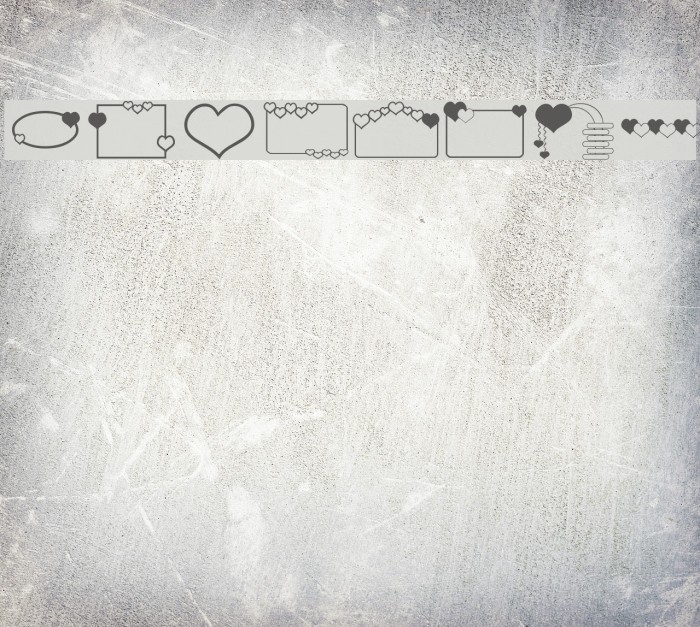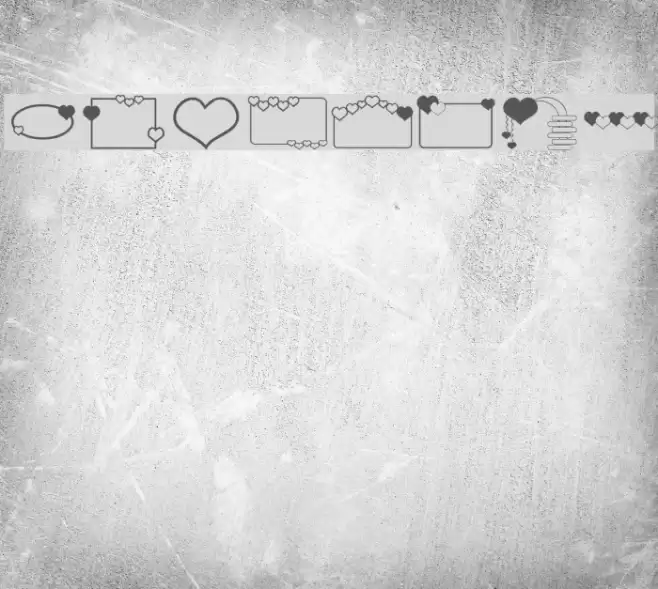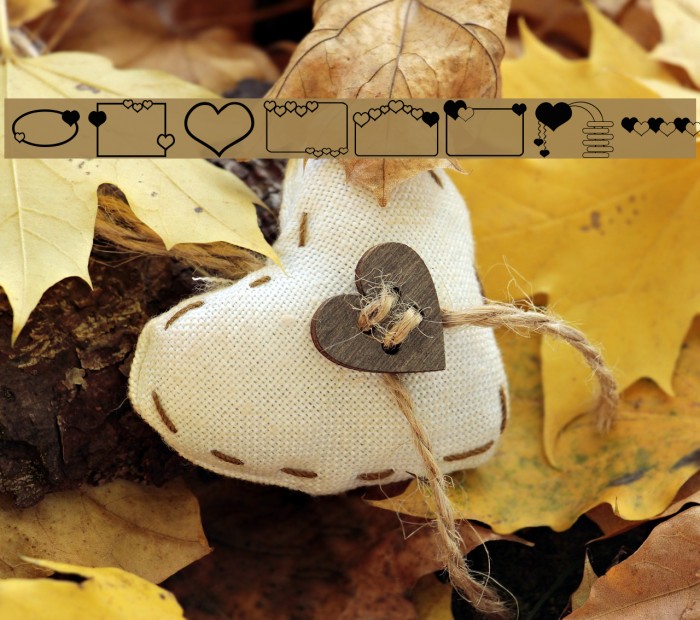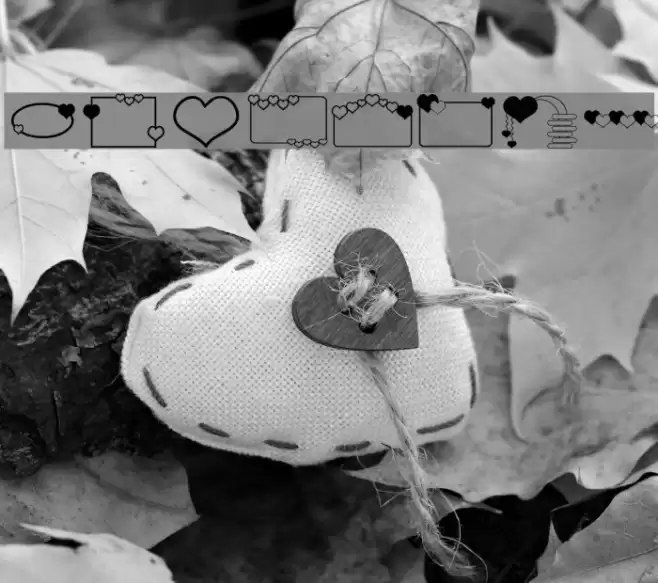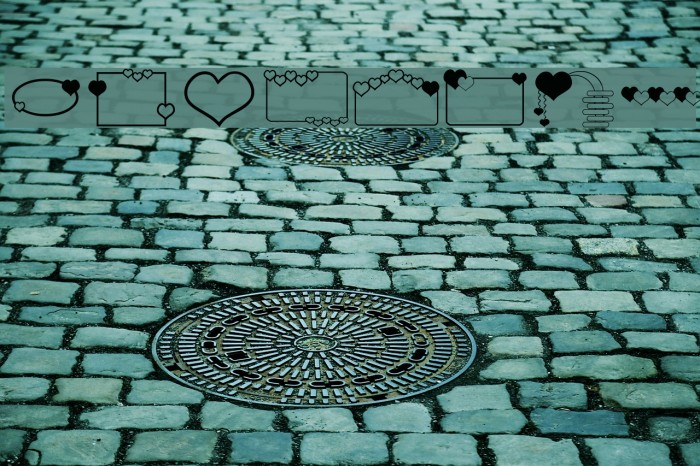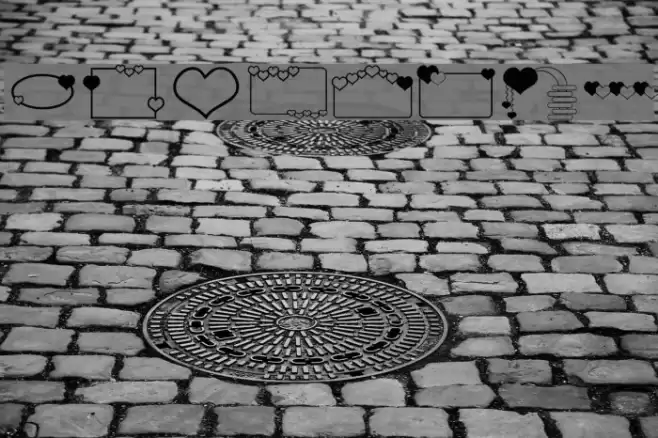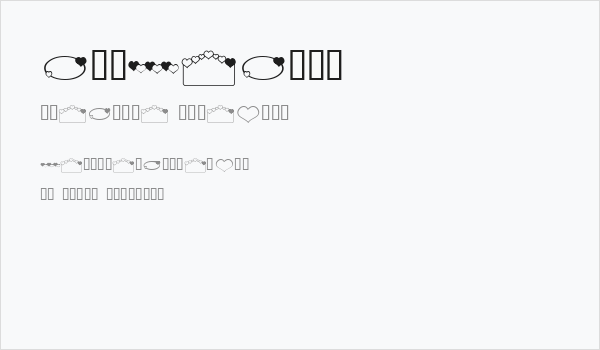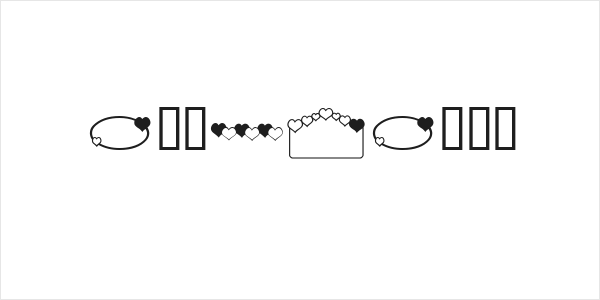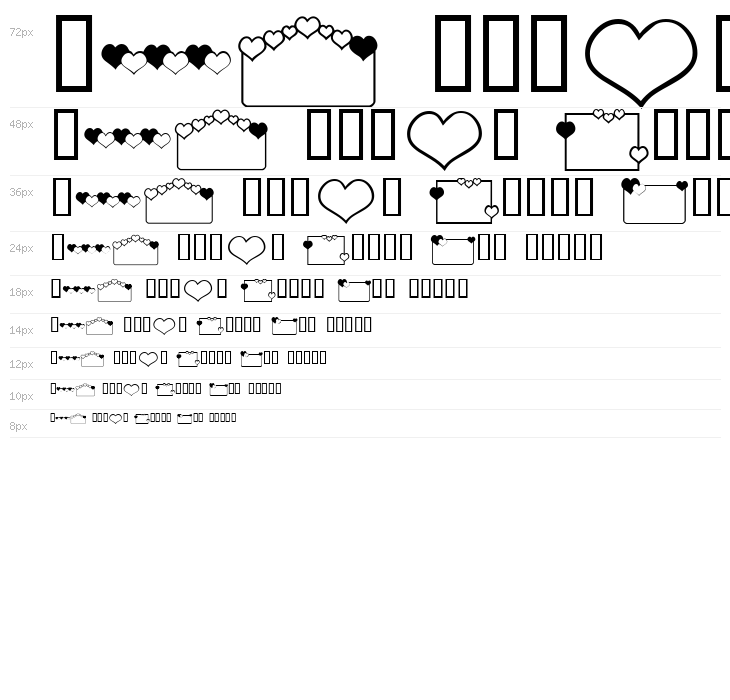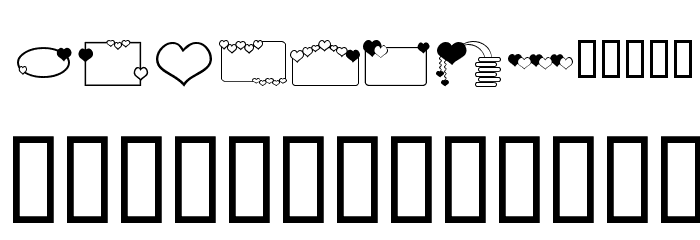
ap_hearts Font
ap_hearts Description
This font is a decorative collection of heart-themed symbols and frames, perfect for adding a romantic or whimsical touch to designs. The characters are not traditional letters or numbers but rather a series of heart motifs and decorative frames. Each symbol is unique, featuring various heart shapes and arrangements, making it ideal for creative projects that require a playful and affectionate aesthetic. The design is consistent across the set, with a focus on love and romance, making it suitable for Valentine's Day projects, wedding invitations, or any design that aims to convey warmth and affection.
| Use Case | Logos, Decorative elements |
| Proposed Projects | Ideal for Valentine's Day cards, wedding invitations, love-themed posters, and romantic social media graphics. |